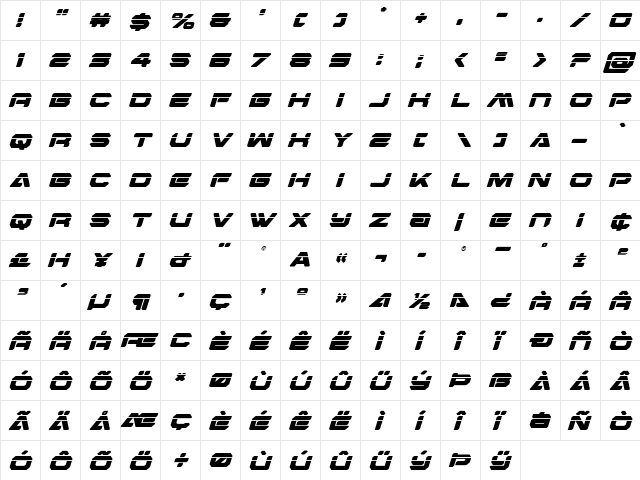
Hyper Viper Laser Italic Italic
Design Context for Hyper Viper Laser Italic Typeface
Hyper Viper Laser Italic is a composed and adaptable typeface that performs quietly and consistently across a wide range of design contexts. The slanted form adds forward momentum and visual energy.